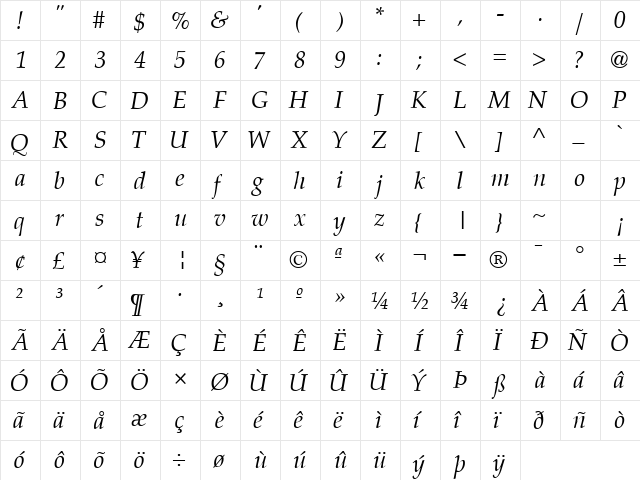
CriteriaSSK Italic
Design Context for CriteriaSSK Typeface
CriteriaSSK offers clean, dependable letterforms without strong stylistic allegiance, making it a practical choice for designers who need flexibility. Its italic angle brings a sense of urgency and motion to the letterforms.
Pro Tip: Use CriteriaSSK for emphasis, pull quotes, and subheadings where its slanted energy can add rhythm to the layout.